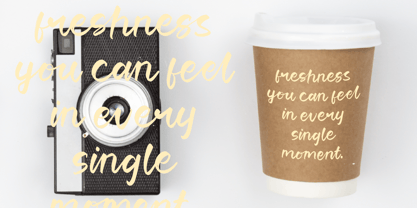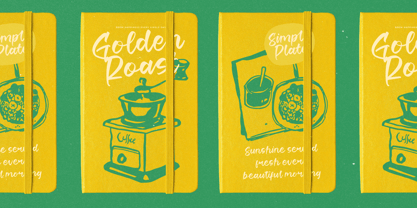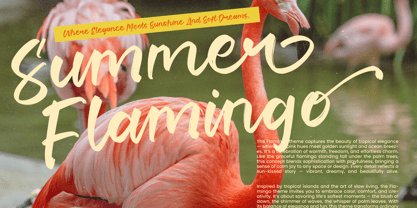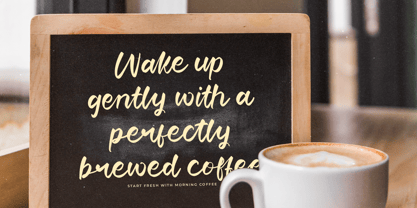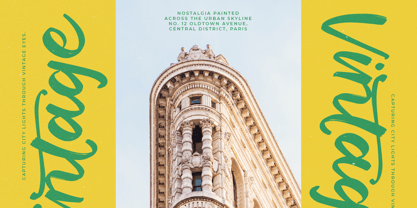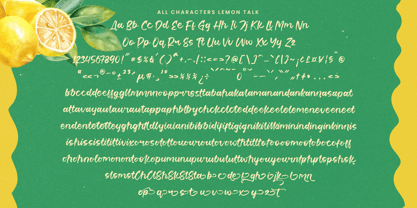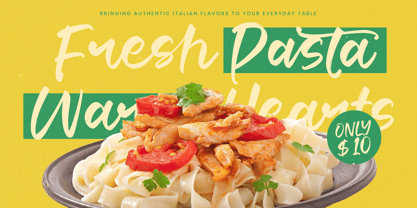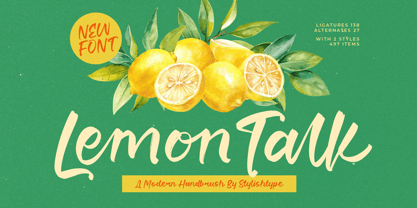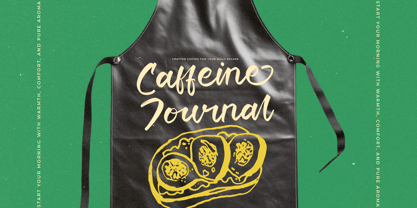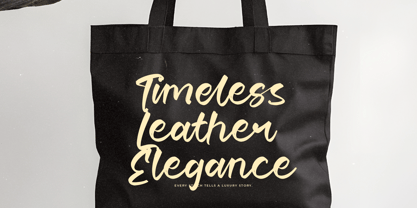
Lemon Talk
The Lemon Talk Font Family was designed by Heru Utama Putra and published by Stylishtype Studio. Lemon Talk contains 2 styles and family package options. More about this family
Lemon Talk - Modern Handbrush Font , from Stylishtype , Suitable for any projects such as: logos, branding projects, homeware designs, product packaging, mugs, quotes, posters, shopping bags, t-shirts, book covers, name card, invitation cards, greeting cards, label, photography, watermark, special events, and all your other luxury and beautiful projects that need a Luxury Script taste.